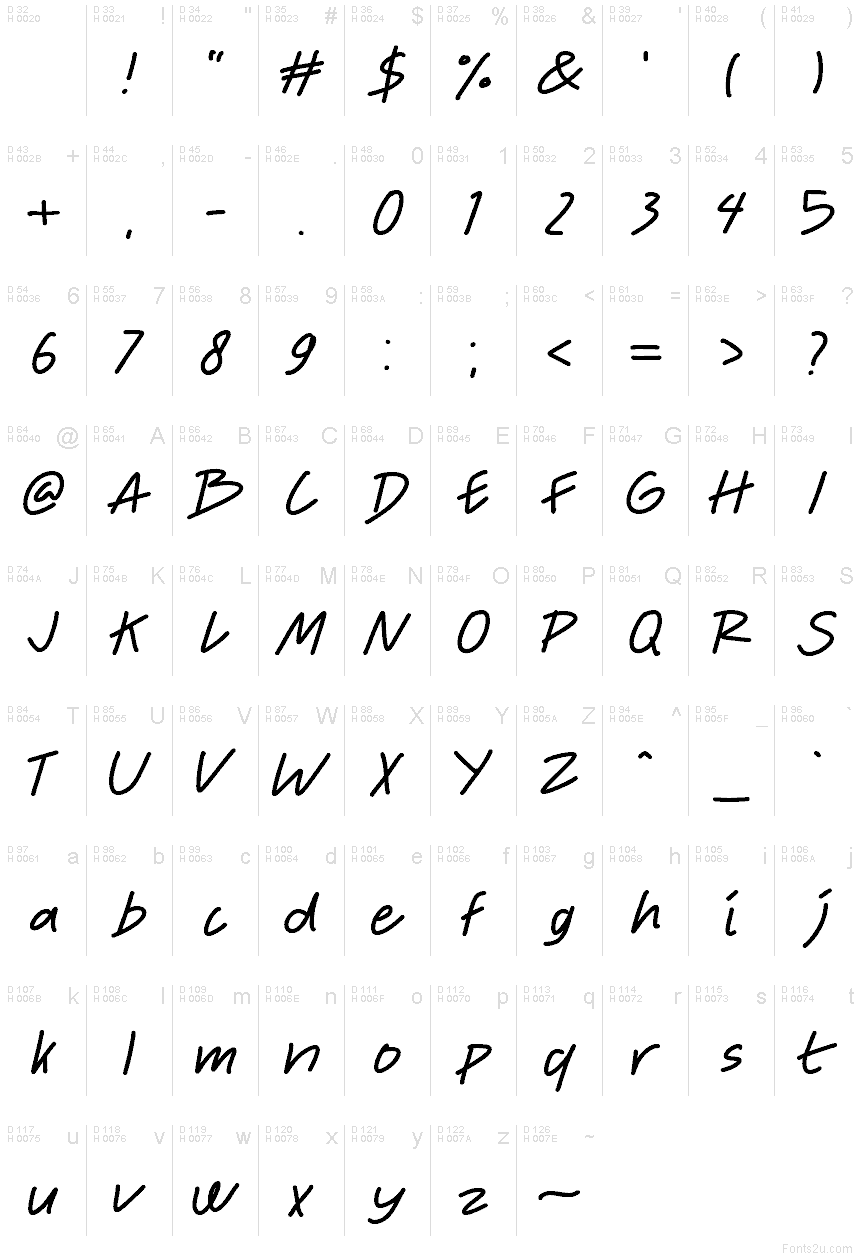
Silver Moon
Silver Moon font by Origin Type brings handwritten casual elegance with a smooth flow and modern vibe. The gentle touch and personal character of this free handwritten font make it well-suited for giving creative projects an air of warmth, style, and genuineness.
This attractive font fits in neatly within prints and digital designs like journal covers, magazine pages, websites, e-commerce platforms, postcards, invitations to birthdays or anniversaries. Other use cases include product packaging design especially cosmetics or snacks that often rely on handwritten letters to attract viewers.